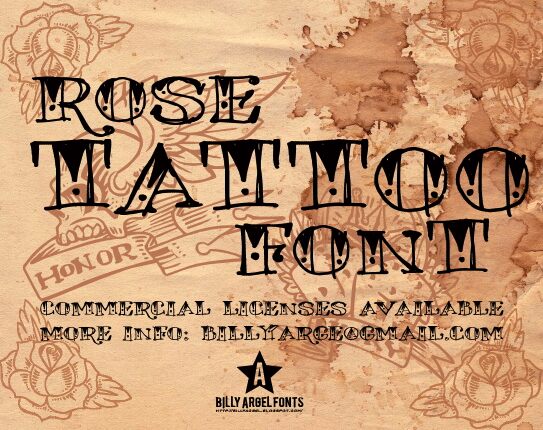
ROSE TATTOO by Billy Argel is a free old-school decorative display font with a carnival-bill silhouette. Tall, uneven capitals mix sharp serifs with curled strokes and teardrop cutouts. The lettering feels hand-inked and theatrical.
Tattoo studios and retro bars could use it for logos, signage, and merchandise. Its pierced details and swinging curves also suit music posters with rockabilly or sideshow imagery. It is especially convincing for brands built around vintage tattoo culture.